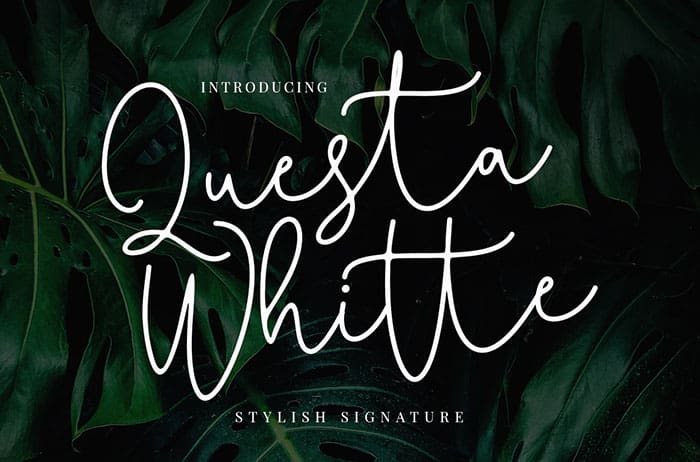
Questa Whitte Script Font
Questa Whitte Script Font that gives it quick and speedy pacing. Its handwritten look can really freshen up your projects. Thanks to Creatype Studio for sharing this font! Take a look at this portfolio for more of his stunning fonts.